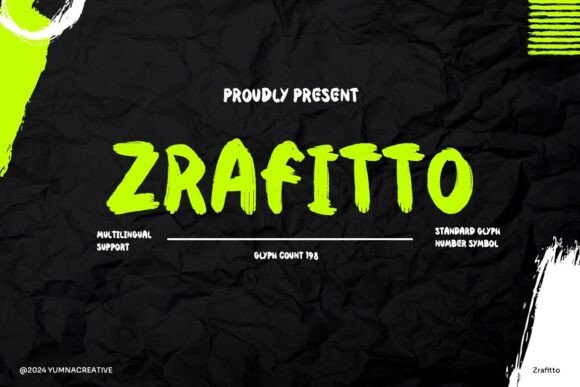
Introducing Zrafitto Font: The Ultimate Brush Handwritten Font for Creative Designs
In the world of typography, fonts play a crucial role in making or breaking a design. A well-chosen font can elevate your creative project, making it more visually appealing and engaging. If you’re looking for a stylish and modern handwritten font that adds a personal touch to your designs, look no further than Zrafitto Font. In this article, we’ll explore the features and benefits of Zrafitto – Brush Handwritten font and how it can take your designs to the next level.
What is Zrafitto Font?
Zrafitto – Brush Handwritten is a stylish and modern handwritten font with brush-like strokes. It has a casual, artistic look, perfect for adding a personal touch to your designs. The font’s smooth, flowing lines make it ideal for invitations, quotes, and creative projects. Whether you’re a designer, artist, or DIY enthusiast, Zrafitto Font is the perfect choice for anyone looking to add a touch of elegance and sophistication to their work.
Key Features of Zrafitto Font
- Brush-like strokes: Zrafitto Font features brush-like strokes that give it a unique, hand-painted look.
- Casual and artistic: The font has a casual, artistic look that’s perfect for creative projects.
- Smooth and flowing lines: Zrafitto Font features smooth, flowing lines that make it ideal for invitations, quotes, and other designs.
- Modern and stylish: The font has a modern and stylish look that’s perfect for designers and artists looking to add a touch of elegance to their work.
10 Creative Ways to Use Zrafitto Font
Zrafitto Font is a versatile font that can be used in a variety of creative projects. Here are 10 ideas to get you started:
- Invitations: Use Zrafitto Font to create beautiful, hand-painted invitations for weddings, birthday parties, and other special occasions.
- Quotes and posters: The font’s smooth, flowing lines make it perfect for creating inspirational quotes and posters.
- Branding and packaging: Zrafitto Font can be used to create unique and eye-catching branding and packaging designs.
- Social media graphics: Use the font to create engaging social media graphics, such as Facebook posts and Instagram stories.
- Blog and website design: Zrafitto Font can be used to add a personal touch to blog and website designs.
- Business cards: The font’s modern and stylish look makes it perfect for creating business cards.
- Brochures and flyers: Use Zrafitto Font to create eye-catching brochures and flyers.
- Signage: The font’s bold and expressive look makes it perfect for creating signage.
- Art and illustration: Zrafitto Font can be used to add a touch of elegance to art and illustration projects.
- DIY projects: Use the font to create unique and personalized DIY projects, such as hand-painted signs and wall art.
The Benefits of Using Zrafitto Font
Zrafitto Font offers a range of benefits that make it the perfect choice for designers, artists, and DIY enthusiasts. Here are some of the key benefits:
- Unique and eye-catching: The font’s brush-like strokes and smooth, flowing lines make it unique and eye-catching.
- Versatile: Zrafitto Font can be used in a variety of creative projects, from invitations and quotes to branding and packaging.
- Easy to read: The font’s clear and legible design makes it easy to read, even at small sizes.
- Customizable: Zrafitto Font can be customized to fit your specific design needs.
- High-quality: The font is high-quality and designed to produce crisp, clear results.
Tips and Tricks for Using Zrafitto Font
Here are some tips and tricks for using Zrafitto Font in your designs:
- Experiment with colors: Zrafitto Font looks great in a range of colors, from bold and bright to soft and pastel.
- Use it with images: The font’s brush-like strokes and smooth, flowing lines make it perfect for use with images.
- Mix and match: Try mixing and matching Zrafitto Font with other fonts to create a unique and eye-catching design.
- Pay attention to spacing: Make sure to pay attention to spacing when using Zrafitto Font, as it can affect the overall look and feel of your design.
- Have fun: Most importantly, have fun and be creative when using Zrafitto Font!
In conclusion, Zrafitto – Brush Handwritten font is a stylish and modern handwritten font that’s perfect for adding a personal touch to your designs. Its brush-like strokes, smooth, flowing lines, and casual, artistic look make it ideal for a range of creative projects, from invitations and quotes to branding and packaging. With its versatility, ease of use, and high-quality design, Zrafitto Font is the perfect choice for designers, artists, and DIY enthusiasts looking to take their designs to the next level.